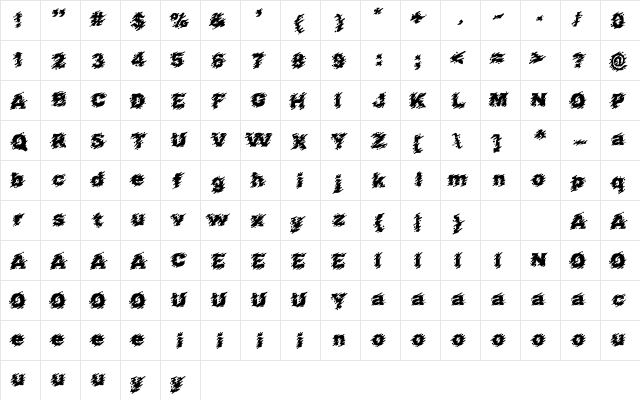
SPLAT Regular
| Foundry | HighUpNorth |
| Designer | HighUpNorth |
Design Context for SPLAT Typeface
SPLAT is a composed and adaptable typeface that performs quietly and consistently across a wide range of design contexts.